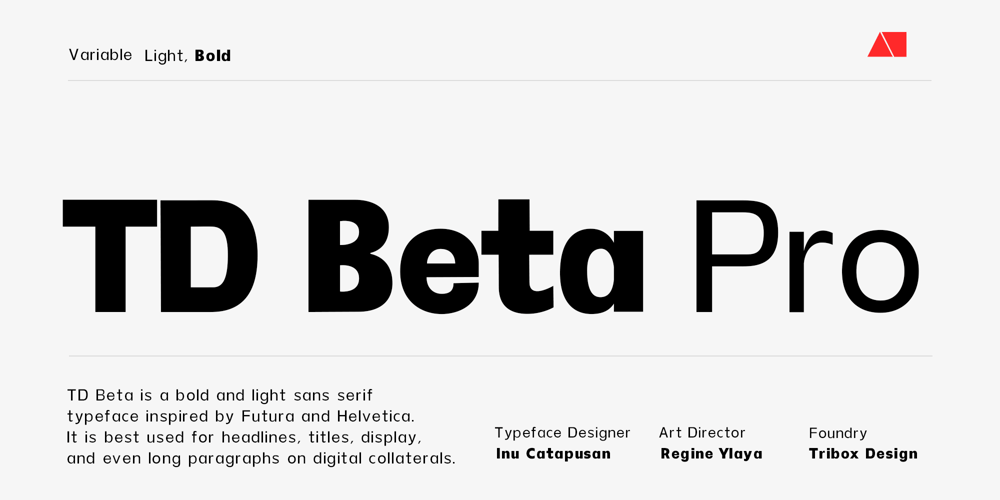
TD Beta Font Family was designed by Inusentes Catapusan and published by Inusentes Catapusan. TD Beta contains 2 styles and family package options. TD Beta is a bold and light sans serif typeface inspired by Futura and Helvetica. It is best used for headlines, titles, display, and even long paragraphs on digital collaterals.